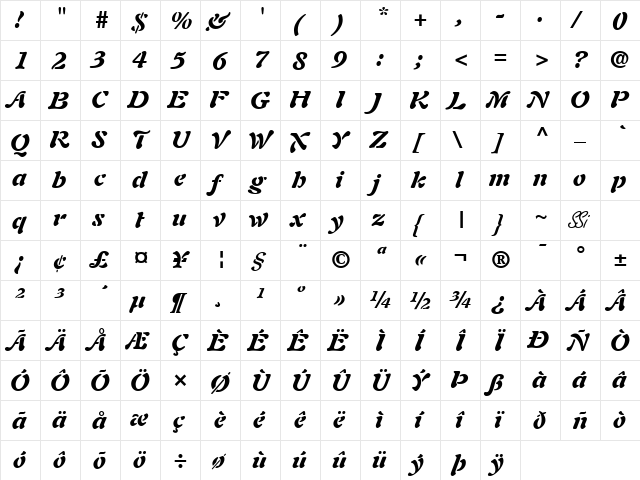
Palette Black SSi Black Italic
Design Context for Palette Black SSi Typeface
Palette Black SSi offers clean, dependable letterforms without strong stylistic allegiance, making it a practical choice for designers who need flexibility. The slanted form adds forward momentum and visual energy.
Pro Tip: Try Palette Black SSi for annotation and caption copy alongside an upright companion — the contrast in angle creates a dynamic but ordered typographic system.